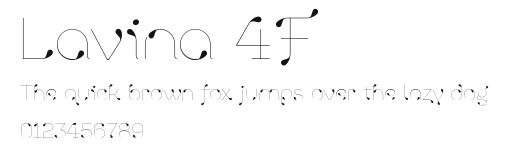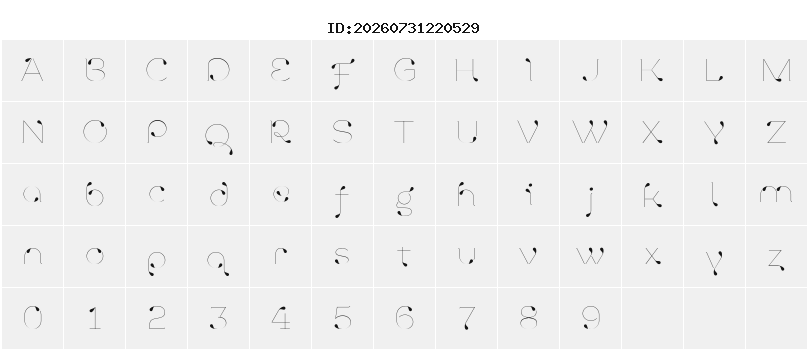
• Font Name: Lavina 4F
• Designer: Ткаченко Сергій Сергійович
Lavina 4F.ttf is a modern, elegant sans-serif font designed for ultimate readability and visual harmony. Perfect for branding, headlines, web design, and print materials.